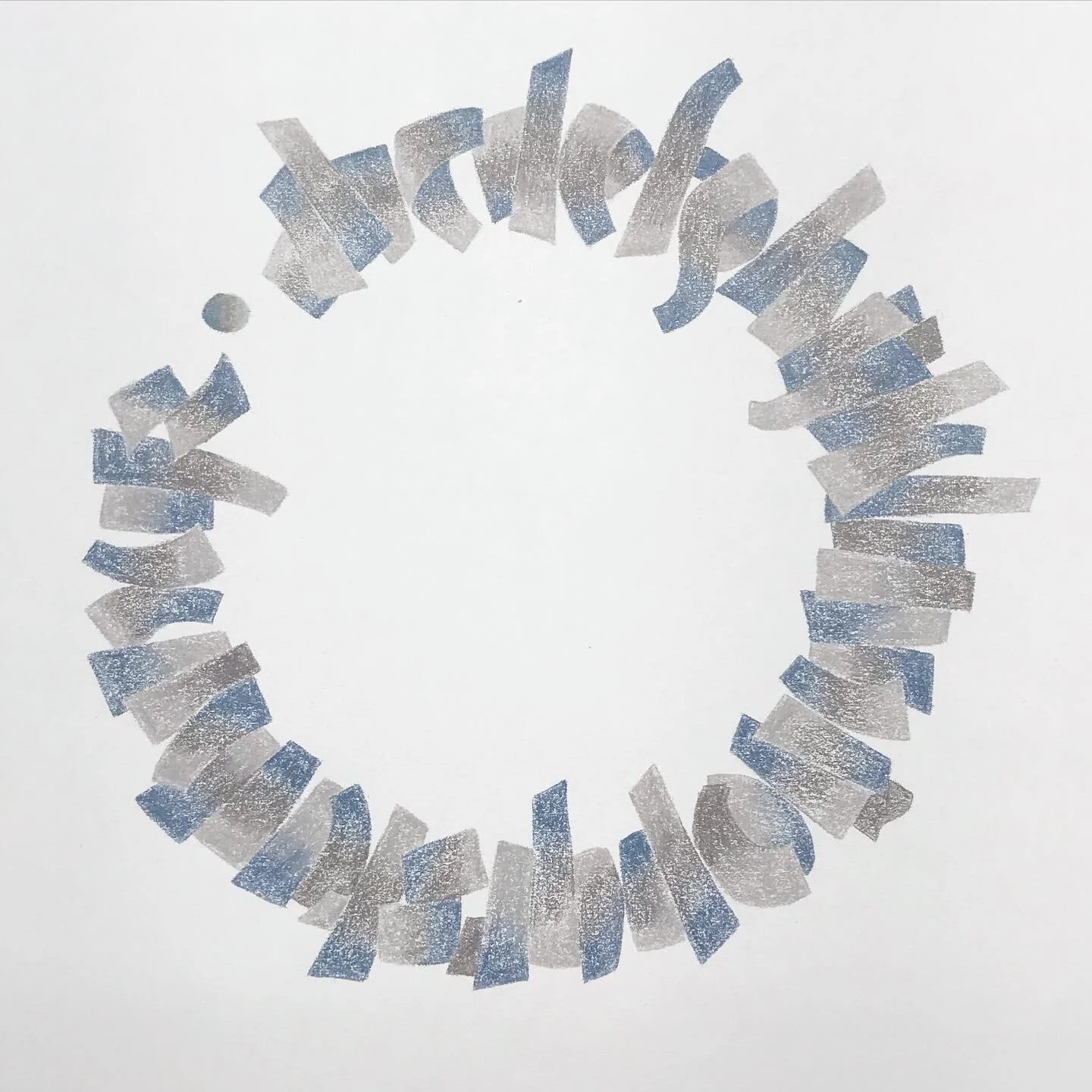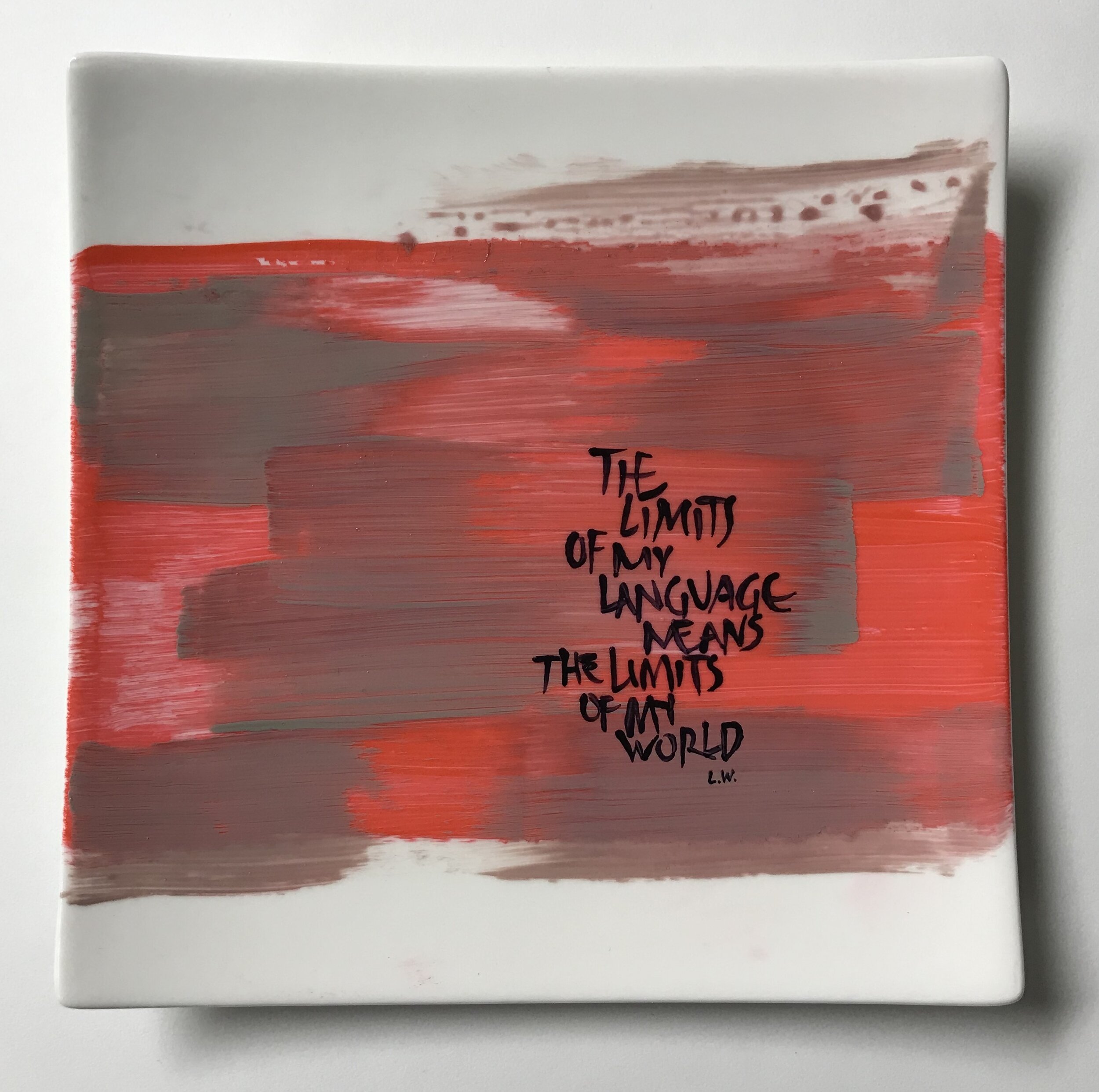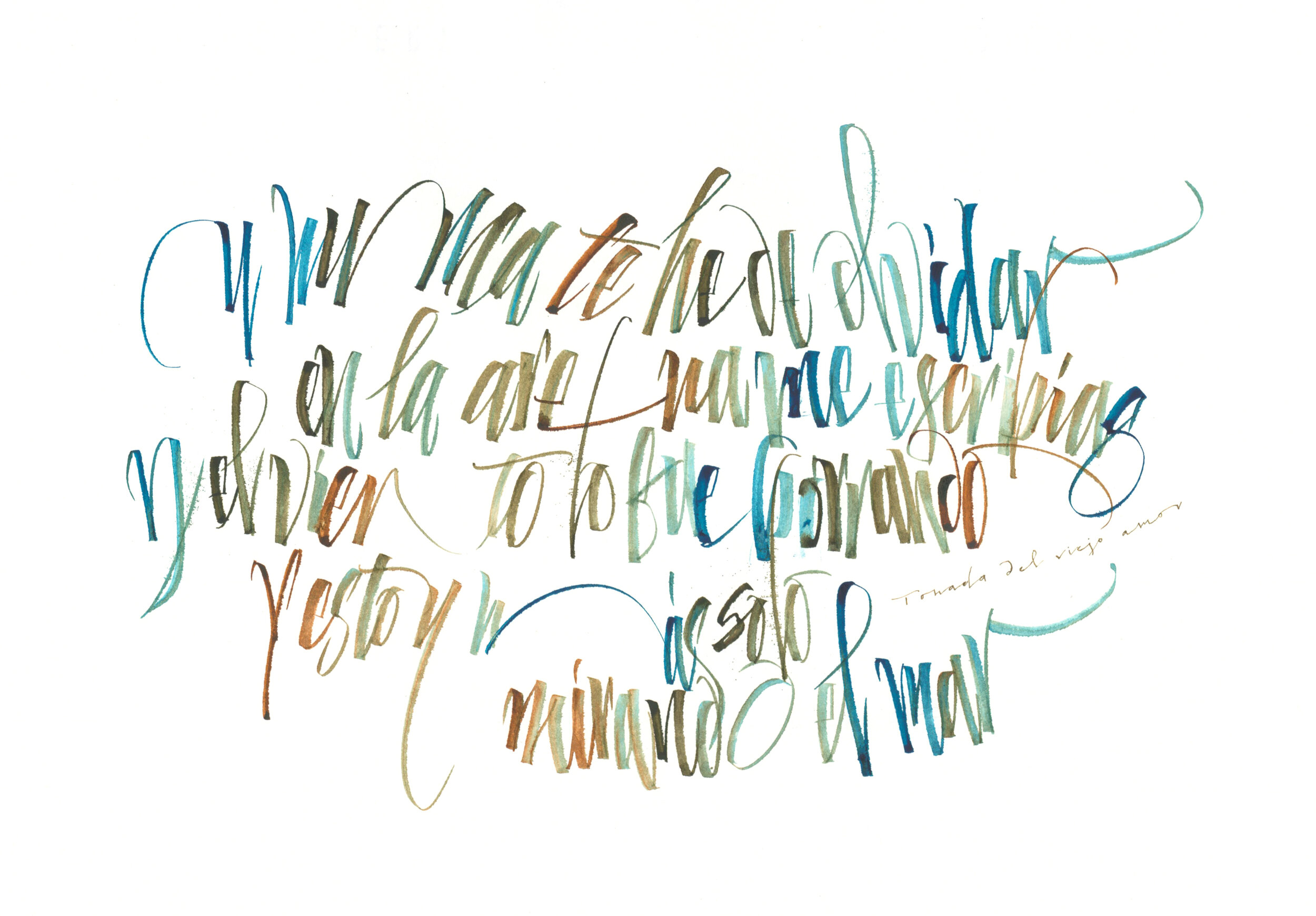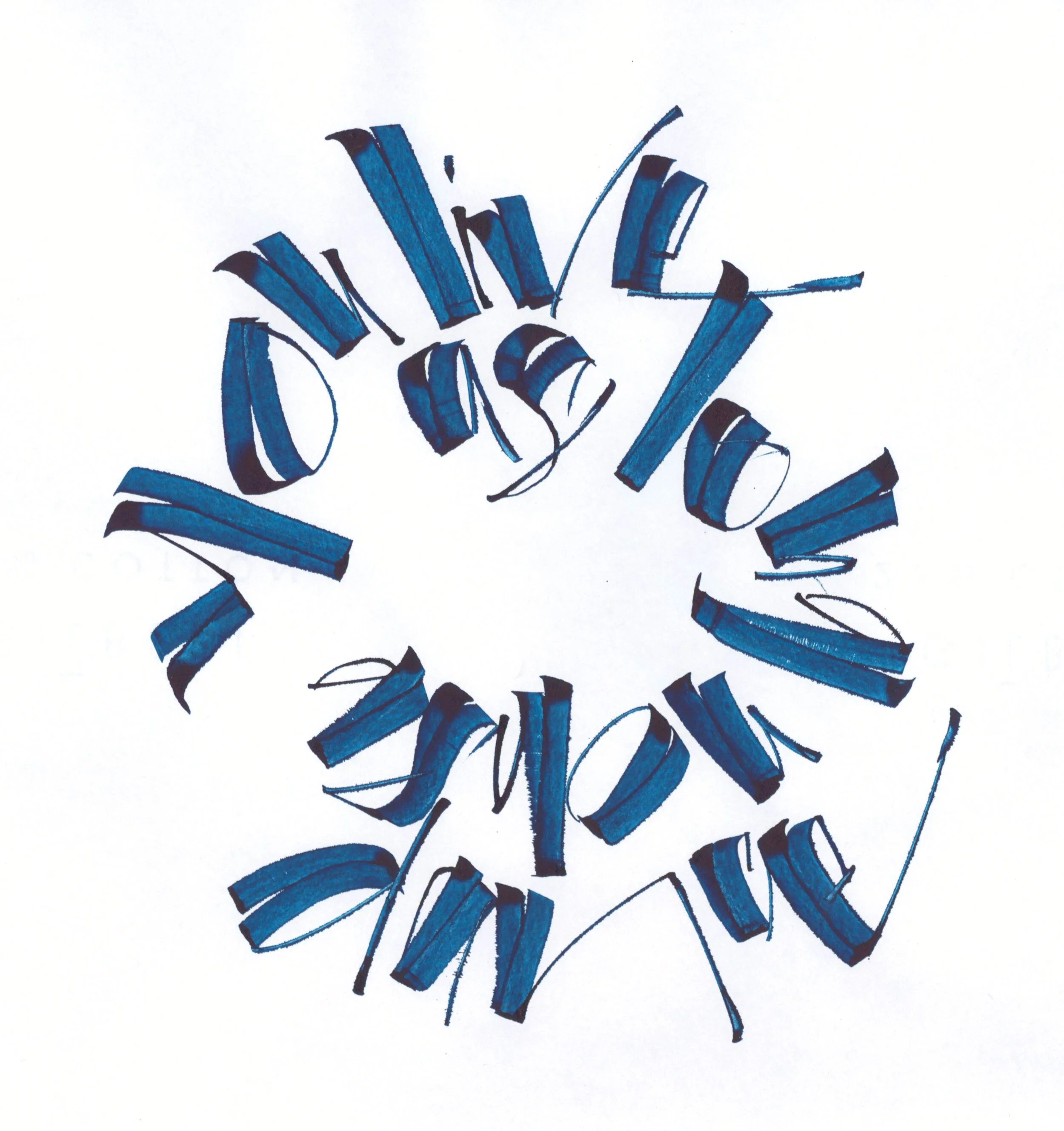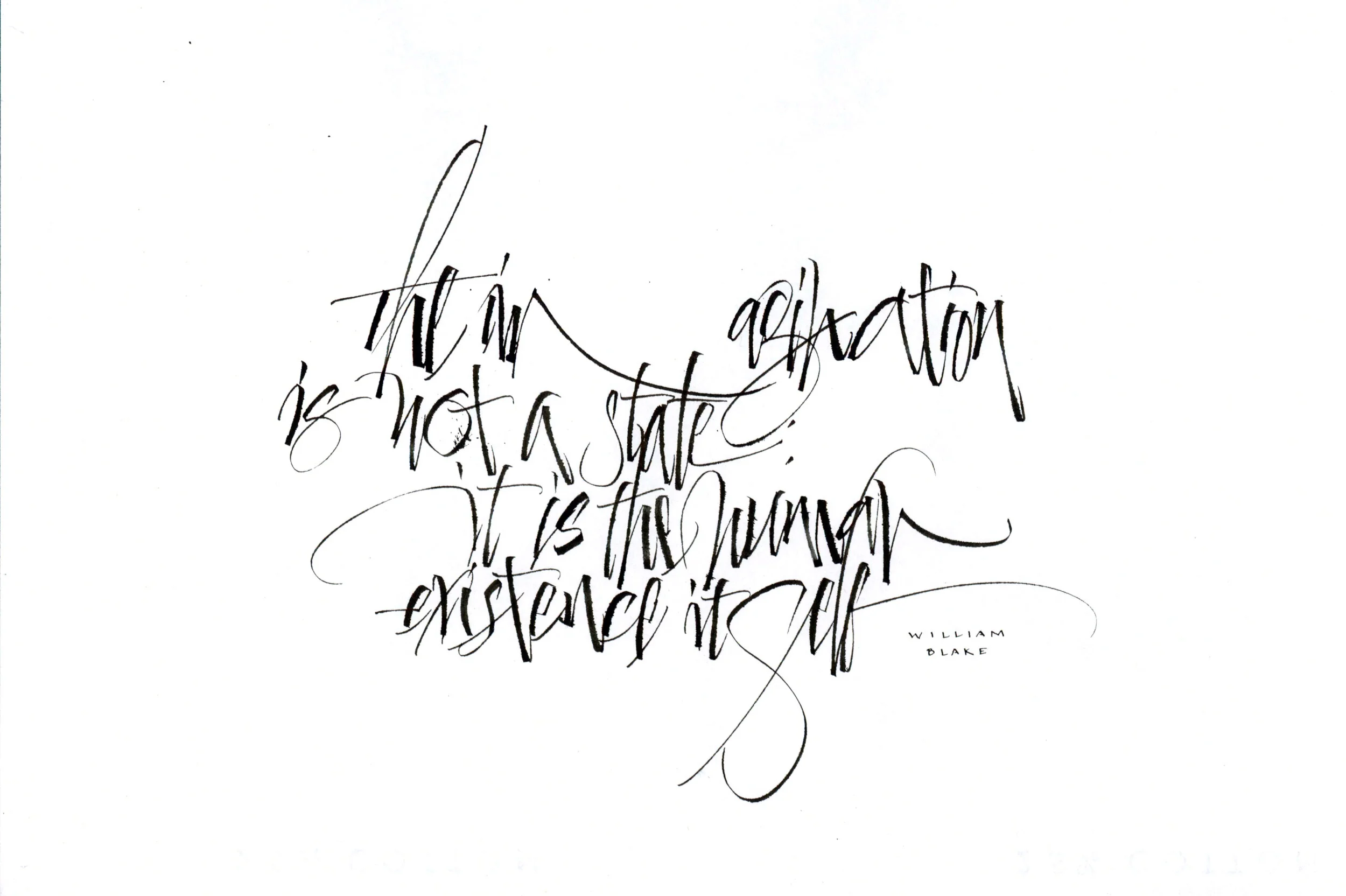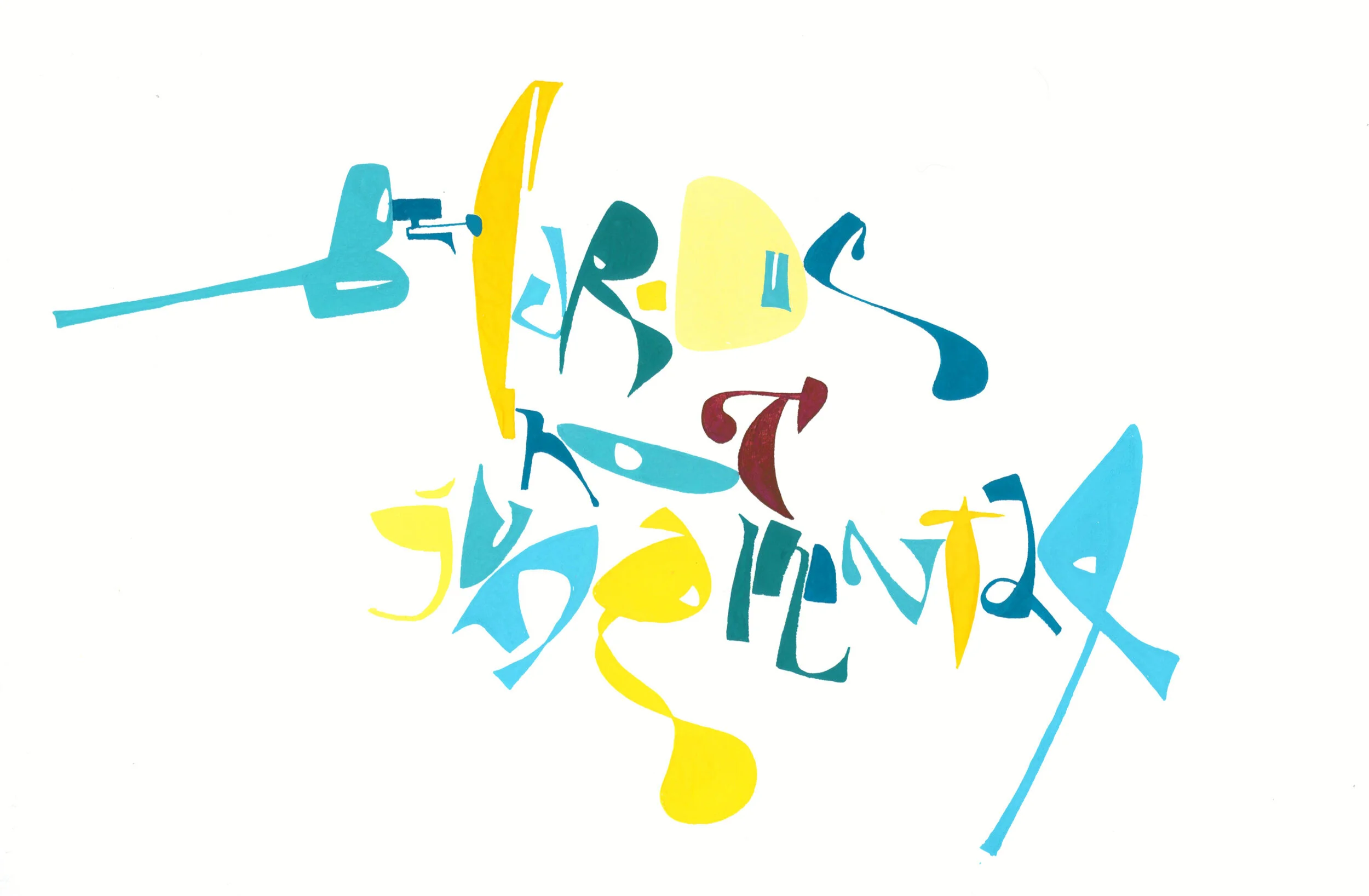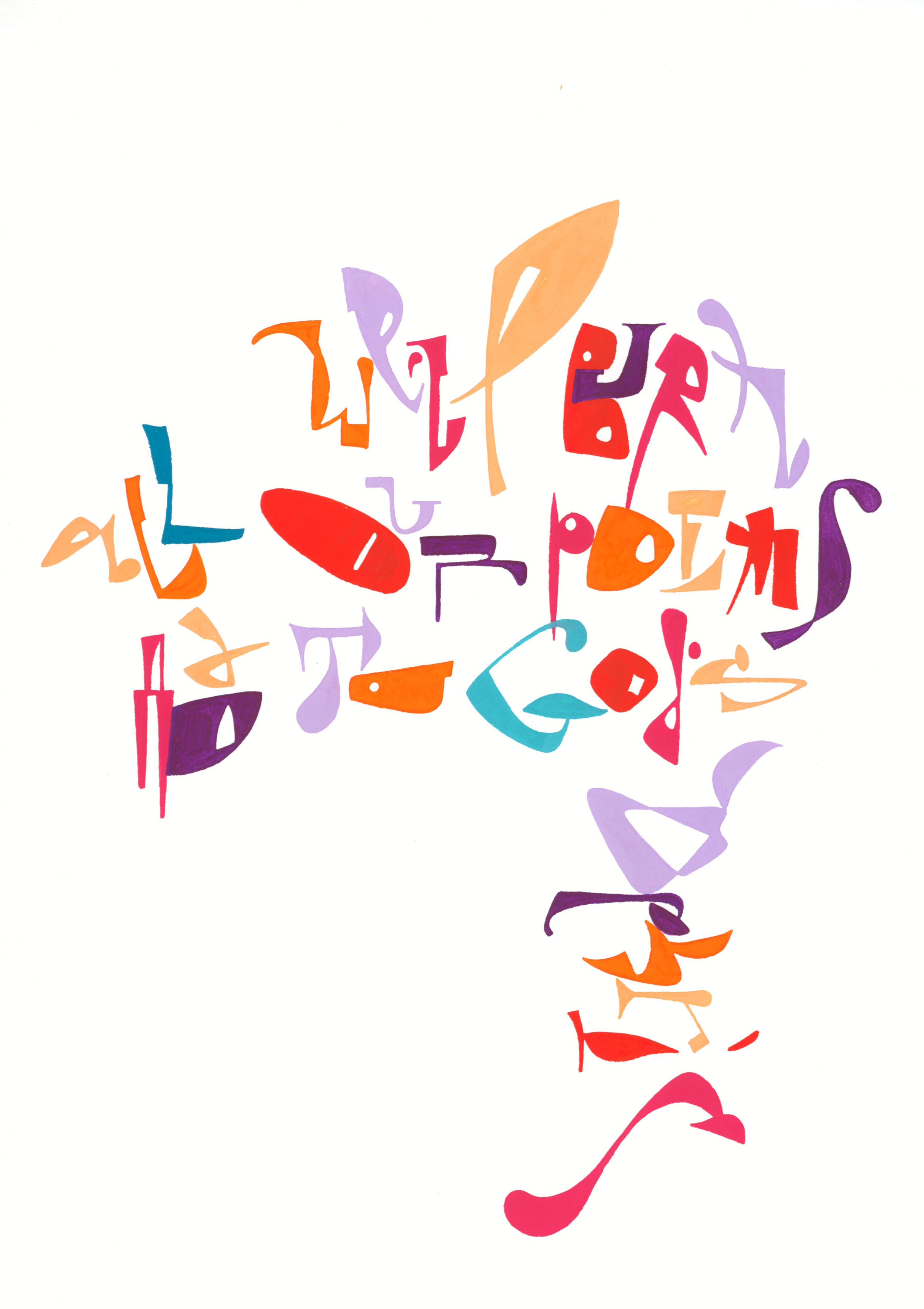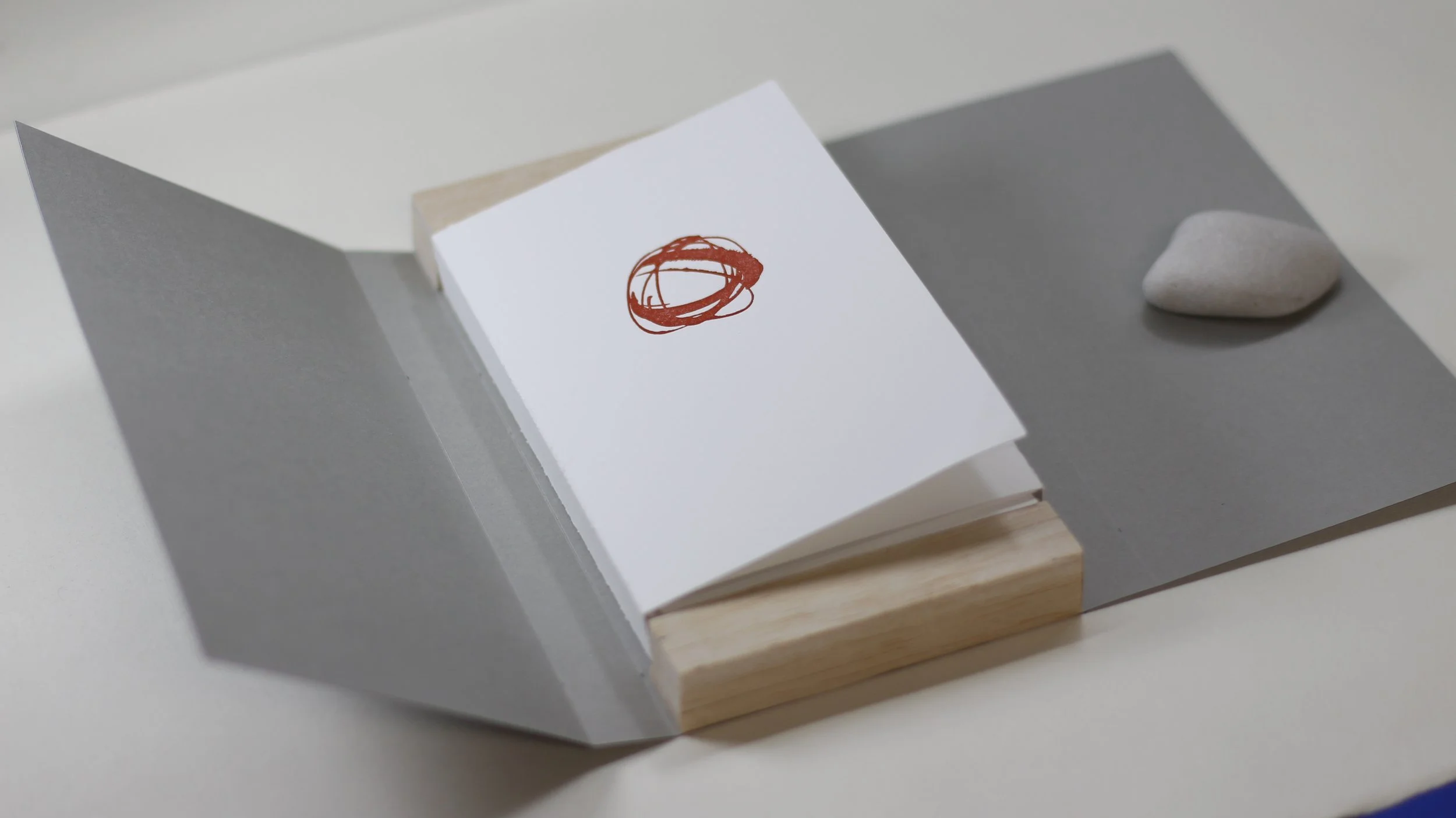
Una mezcla sin sentido y con todos los sentidos.
Hand-cut paper.
Neenah Crest 80 cover. 2022.
Menguante
Pointed brush.
Ástor
Ástor. Tangible music.
As a native Argentinian, the music of Ástor Piazzolla (1) lives deep in my soul.
The idea for this piece started to grow after attending a workshop on paper engineering with Kelli Anderson. Initially, I wanted to create the word “Astor” in folded paper (2, 3), to emulate his iconic instrument, the bandoneon—a type of concertina popular in Argentina. After some tests, I decided that trying to make the whole word was too complex, so I developed only the letter A (4, 5).
His music is called música ciudadana, “music from the city” of Buenos Aires. Passionate, vibrant, nocturnal, sorrowful, and melancholic, his lyrics and music belong to Buenos Aires’ porteña night. Black paper and very bright blue strokes transmit the feeling of rainy nights and dark spaces. The intentionally illegible text, tangamente enamorada (6) (“tango-ish in love”), is an extract from Balada para mi muerte (“A ballad to my death”).
Because it’s a 3-dimensional piece, it should be seen from many perspectives (7). For that purpose, I created a clamshell case (8) to keep the piece inside, but also to serve as a stand to display it opened, as intended.
The black paper is Strathmore. The calligraphy was made with ruling pens and gouache.
The box is 11 x 11 x 2 in., and the “A” folded is approximately 3 x 6 x 1.5 in.
Hand-cut Gilbert paper. 12 x 12 in. 2022
Alfarera
Alfarera (The woman potter). Connecting places and crafts.
In 2021, I attended the postgraduate course Diplomatura en Artes del Libro (Arts of the Book Postgraduate Course) at the National Art University in Buenos Aires, Argentina. Due to the pandemic, it was mostly online.
For the final book project (7), I collaborated with two artists: Catalina Rojas, letterpress printer, and Romina Cabaleiro, writer and editor. Catalina lives in Miami, Romina in Buenos Aires, and I in Chicago (1).
The inspiration for our book was Stonecutter, by Jon J. Muth and John Kuramoto (2), a version of the traditional East Asian folktale about the nature of power and the value of accepting who you are. We decided to make a new version written in Spanish, in haiku instead of prose, and with a woman potter as the main character. Romina created this character to experience different Argentinian scenarios and traditions (3) and Catalina printed this story subtly, debossed, without ink colors (4). It’s a book to read with time for meditation and contemplation.
I provided the general design and layout (5), and the calligraphy for the cover and dividers (6).
It was an amazing experience merging all of our crafts and a true collaboration in every level, from the content, across the design, and through the printing process.
Cardellino
30x30 cm. Color pencil.
“ We'll burn all of our poems
Add to god's debris”
Patti Smith.
Gouache on Rives BFK. 20x13 in.
“I can give you my loneliness, my darkness, the
hunger of my heart; I am trying to bribe you
with uncertainty, with danger, with defeat.”
Jorge Luis Borges (1934)
Gouache on Rives BFK. 20x13 in.
Be curious, not judgmental.
Gouache on Rives BFK. 20x13 in.
Lettering on ceramic plates. 2020
Color pencils.
Never let go.
Patti Smith.
Color pencils, ruling pen, and vector file.
Todas las hojas son del viento. L. A. Spinetta.
Digital, 2020
6x6”, gansai.
Handmade embossing. Watercolor.
Watercolor, 6x6”.
New Year card, 2019.
Sumi ink on Arches paper.
10x8.5”
Sumi ink. Kadhi paper.
Watercolor, Kadhi paper.
Collaboration with Judith Mayer.
Chalk and pastel. 4x4f
Chalk Howard Street Festival, 2019.
Commission for The Society of Typographic Arts. Chicago Characters: A Brief & Incomplete History of Design in Chicago. 2018
Carved slate. Capital romans with flat brush, gouache. Red lettering with EZA pen.
2017. Translation. Fraktur.